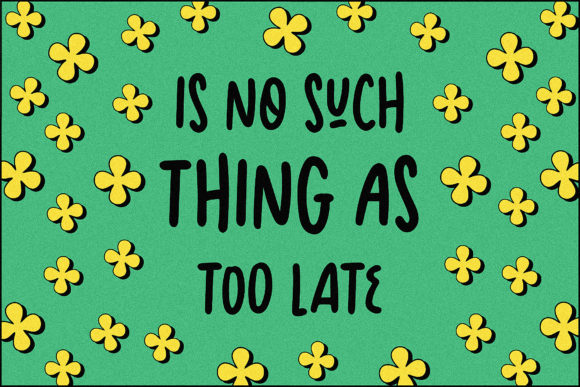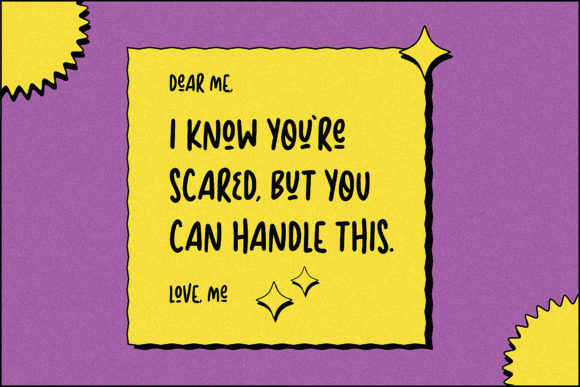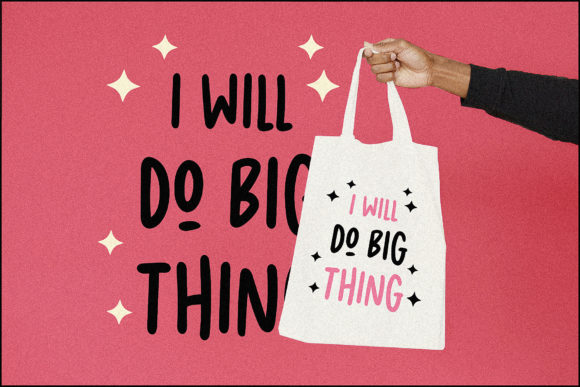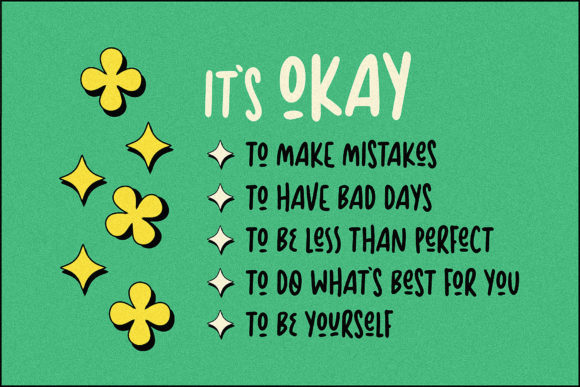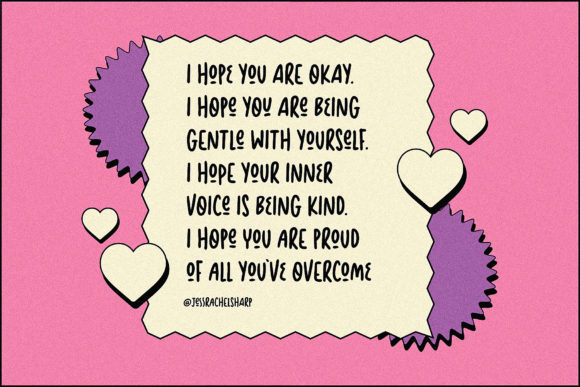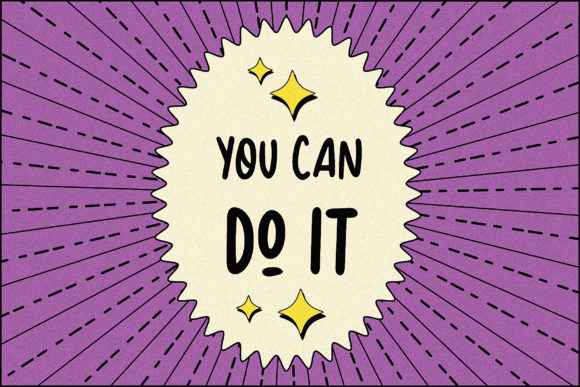
Introduction to Naughty Youth Font
Naughty Youth is a cute and quirky display font.
No matter the topic, this font will be an incredibly asset to your fontsโ€™ library, as it has the potential to elevate any creation .
Key Features of Naughty Youth Font
Why Choose Naughty Youth Font?
Naughty Youth Font offers exceptional quality and versatility, making it a valuable addition to your design toolkit. Whether you’re creating for personal projects or commercial use, Naughty Youth Font delivers professional results.